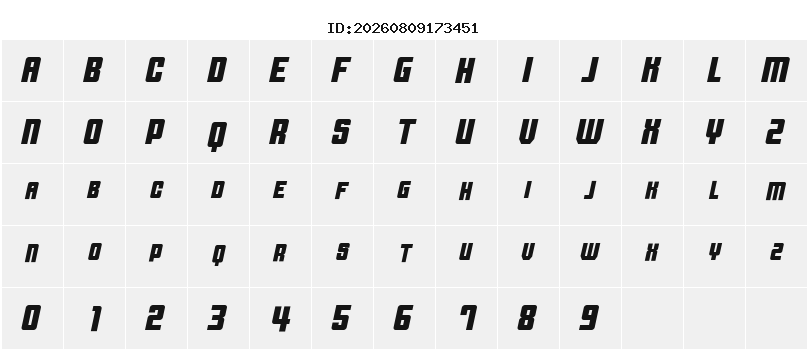
• Font Name: Paregos
Paregos.ttf is a modern, elegant sans-serif font designed for ultimate readability and visual harmony. Perfect for branding, headlines, web design, and print materials.